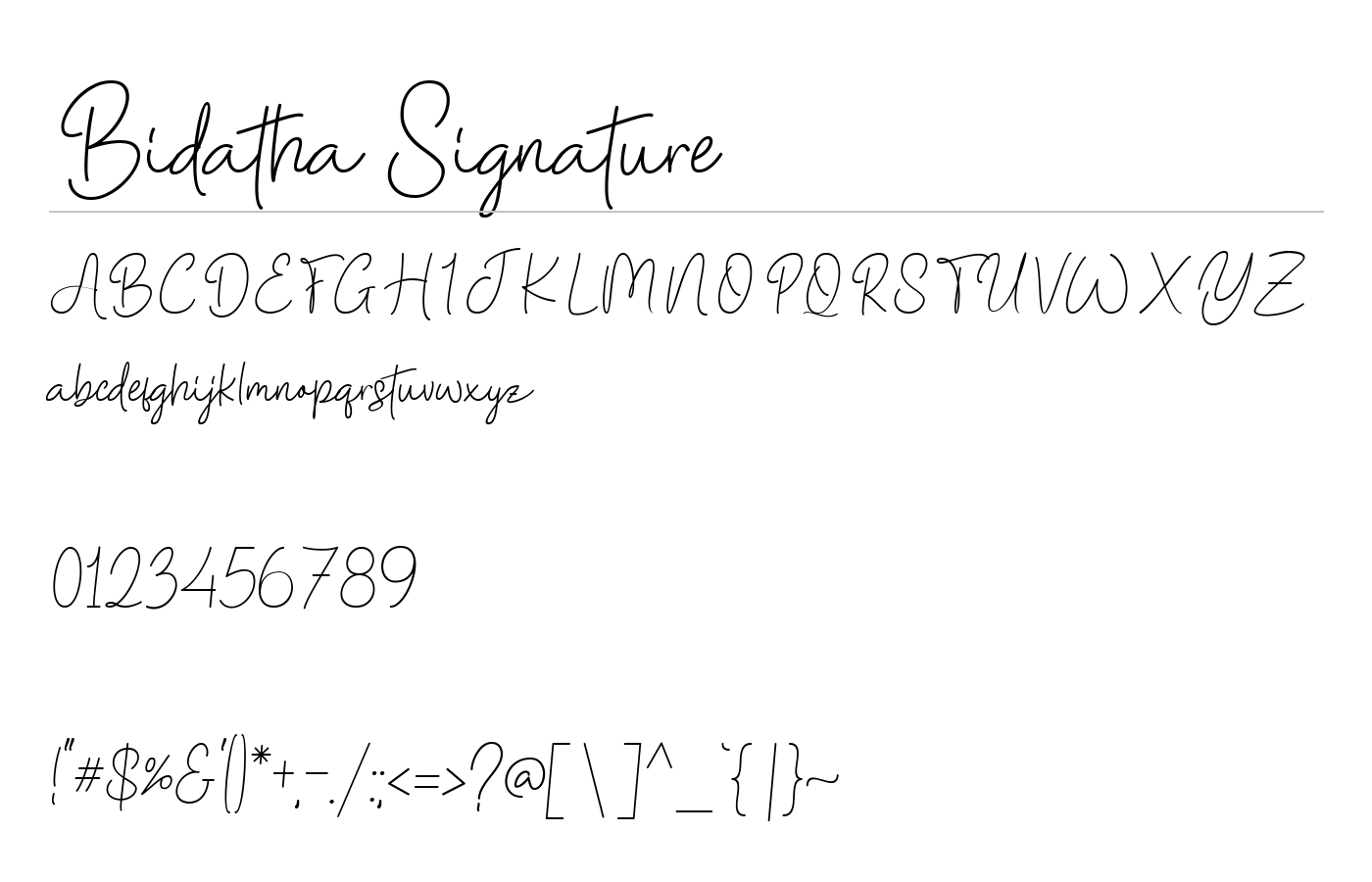
Bidatha Signature is a delicate, handwritten script font that mimics elegant, natural penmanship with thin, flowing strokes and a light weight. Its tall, slender letterforms and gentle curves create a refined yet approachable feel, making it ideal for stylish branding, invitations, and personal projects where a sophisticated, intimate touch is desired. This font works beautifully in logos, headlines, and editorial designs that aim to convey elegance and a personal signature style.
Bidatha Signature Font
About Bidatha Signature Font